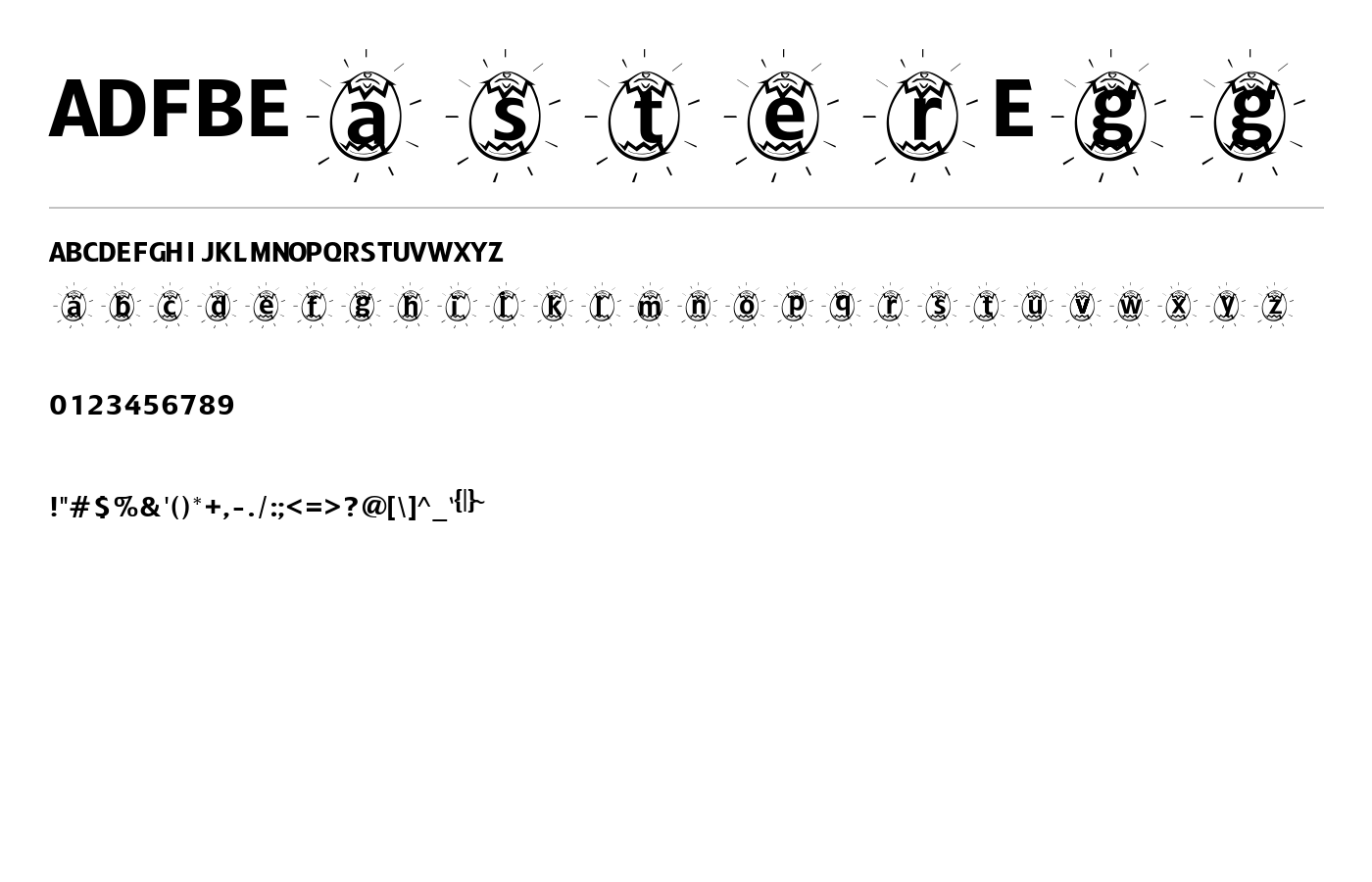
ADFBEasterEgg is a bold, sans serif font with a clean and modern feel, featuring a normal width and moderate x-height for easy readability. Its playful character comes from the special Easter egg-themed variations of lowercase letters surrounded by decorative cracked egg shapes, making it perfect for festive or creative branding, children's media, and fun headlines. This font’s clear structure combined with whimsical elements adds a lively yet approachable personality to any project.
ADFBEasterEgg Font
About ADFBEasterEgg Font